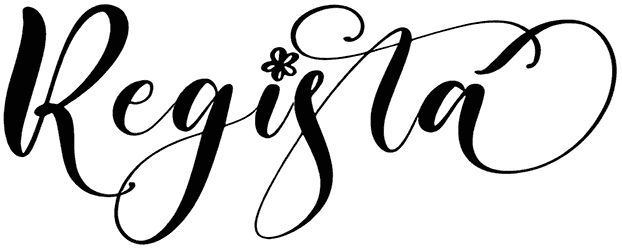
Regista Font
Regista can turn your project into a real work of art and leave an unrepeatable work of yours with its magical quality. This calligraphy font offers you two styles that allow you to add elegance and complexity with just a few simple clicks.
So why settle for mediocre when you can have the beauty of this script font? Let your creativity flow, and use Regista’s endless possibilities to design packaging, posters, or decorative boards.